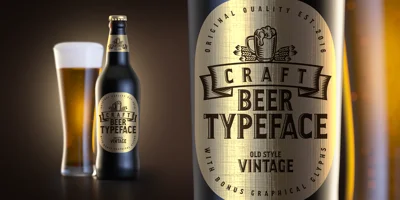
Free Downloadable Fonts
Introduction: Free Downloadable Fonts
Opening Statement: Free fonts are a valuable resource in the design world, offering both accessibility and style for various projects. In this post, we’ll explore where to find high-quality free fonts, popular categories, and tips on how to use them effectively.
Why They Matter: Free fonts are essential for budget-conscious designers, bloggers, and content creators looking to add visual flair without the cost.
Top Sites for Free Fonts
Google Fonts: Known for being SEO-friendly and easy to implement on websites, Google Fonts is a go-to for web designers.
Font Squirrel: Offers free fonts that are also licensed for commercial use, making it popular for business projects.
DaFont and Behance: DaFont has a wide range of styles, while Behance offers unique fonts by various designers.
Additional Resources: Mention lesser-known sites like Acid Fonts, The League of Movable Type, and Lost Type Co-Op, where users can discover niche and standout fonts.
Types of Free Fonts and Best Uses
Script and Handwritten Fonts: Ideal for invitations, logos, and social media graphics.
Sans Serif Fonts: Clean and minimalist, perfect for modern and professional projects.
Serif Fonts: Traditional and professional, often used for business materials or formal websites.
Display and Headline Fonts: These bold, eye-catching fonts are great for headings, posters, and banners.
Retro and Vintage Fonts: Bring a nostalgic vibe to projects, popular for designs that aim to capture a classic look.
Quality and Compatibility: Consider how a font appears at different sizes, and if it’s compatible across web and mobile platforms.
Design Fit: Select fonts that align with the visual identity of your project. Each font style has a unique tone and may not suit every type of content.
Conclusion: Finding the Perfect Free Font
Wrap up by encouraging readers to experiment with fonts and find one that enhances their project’s message. End with a motivational line, such as, "The right font can amplify your message and set the tone for your project."